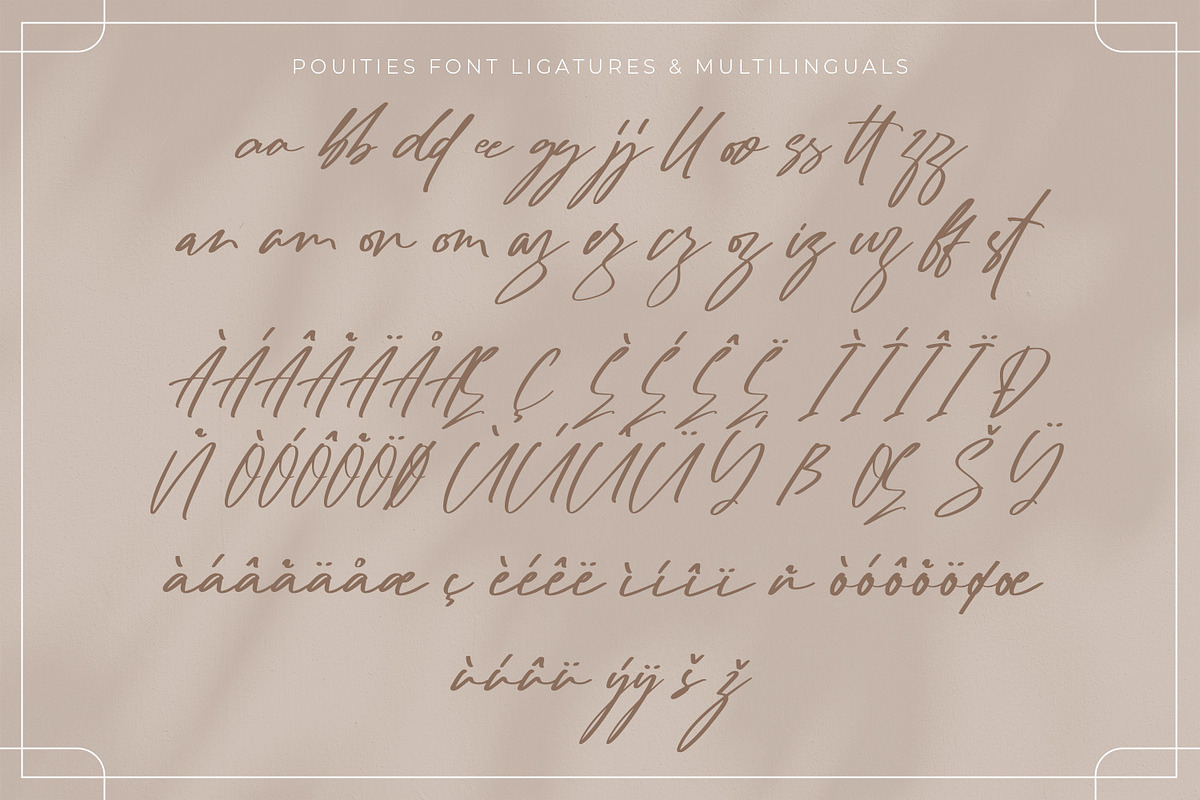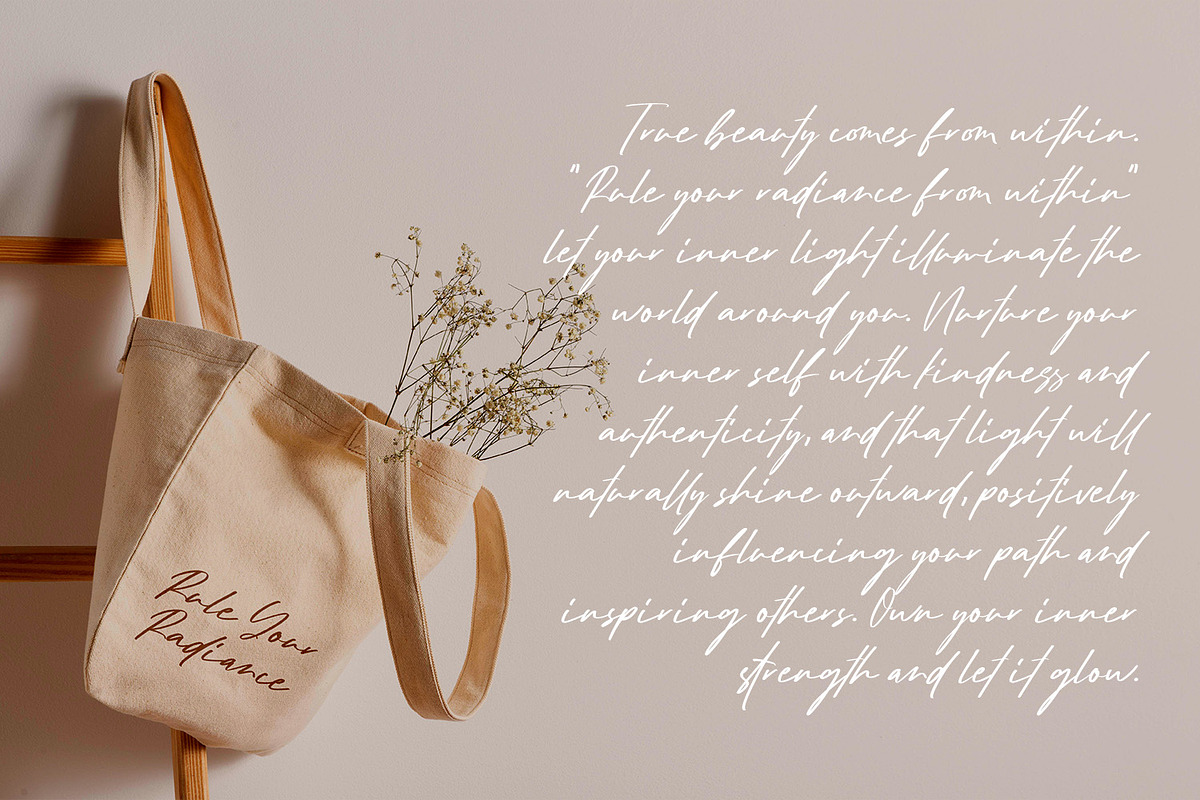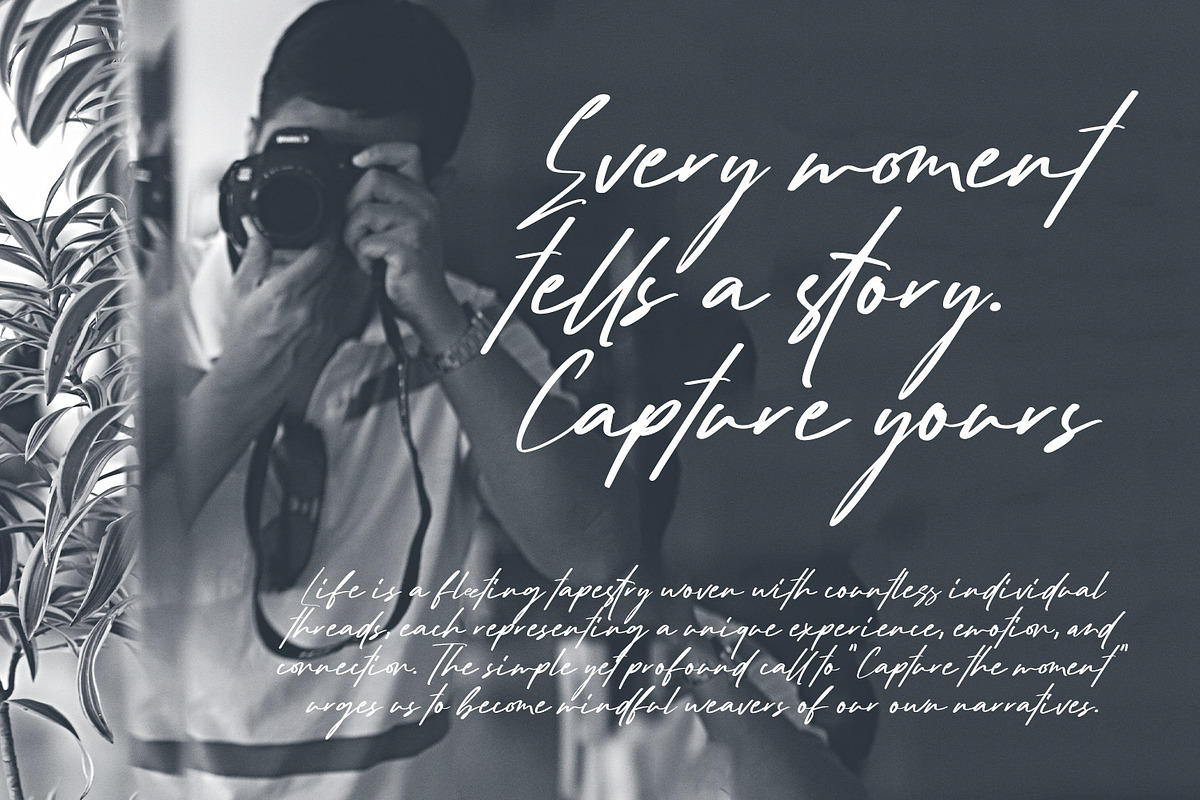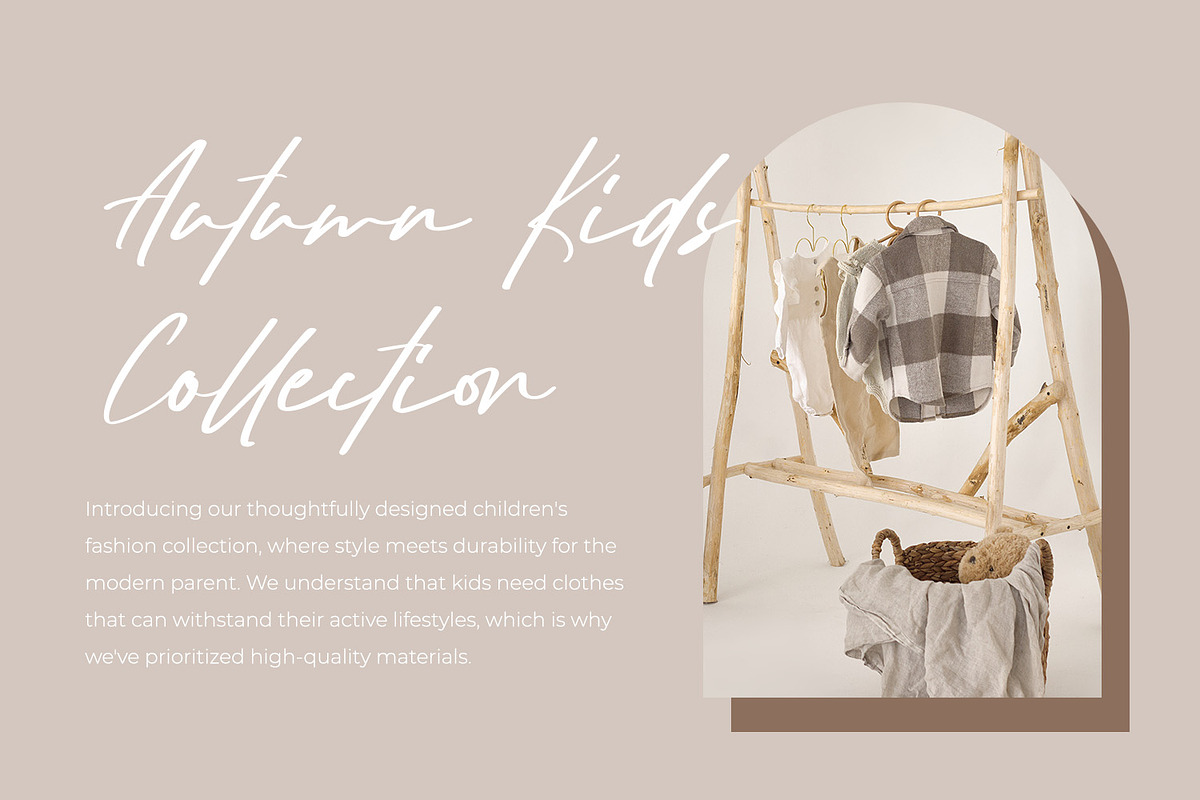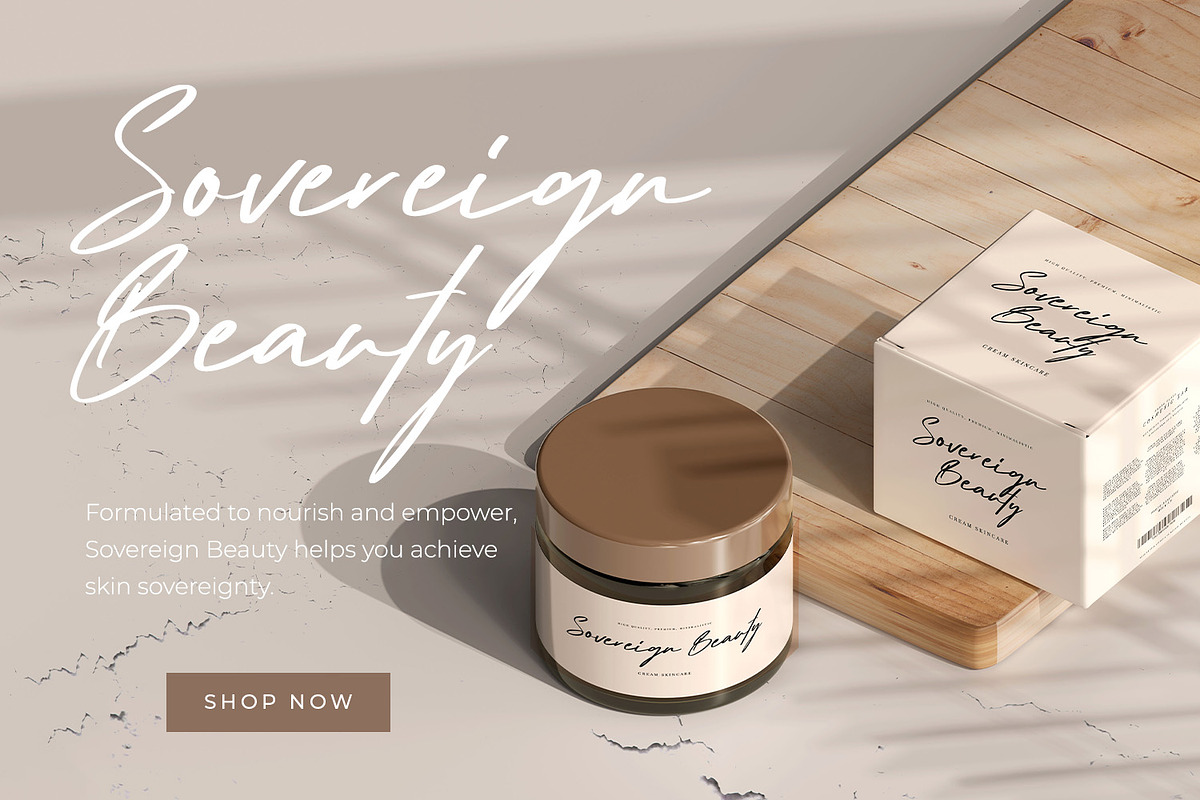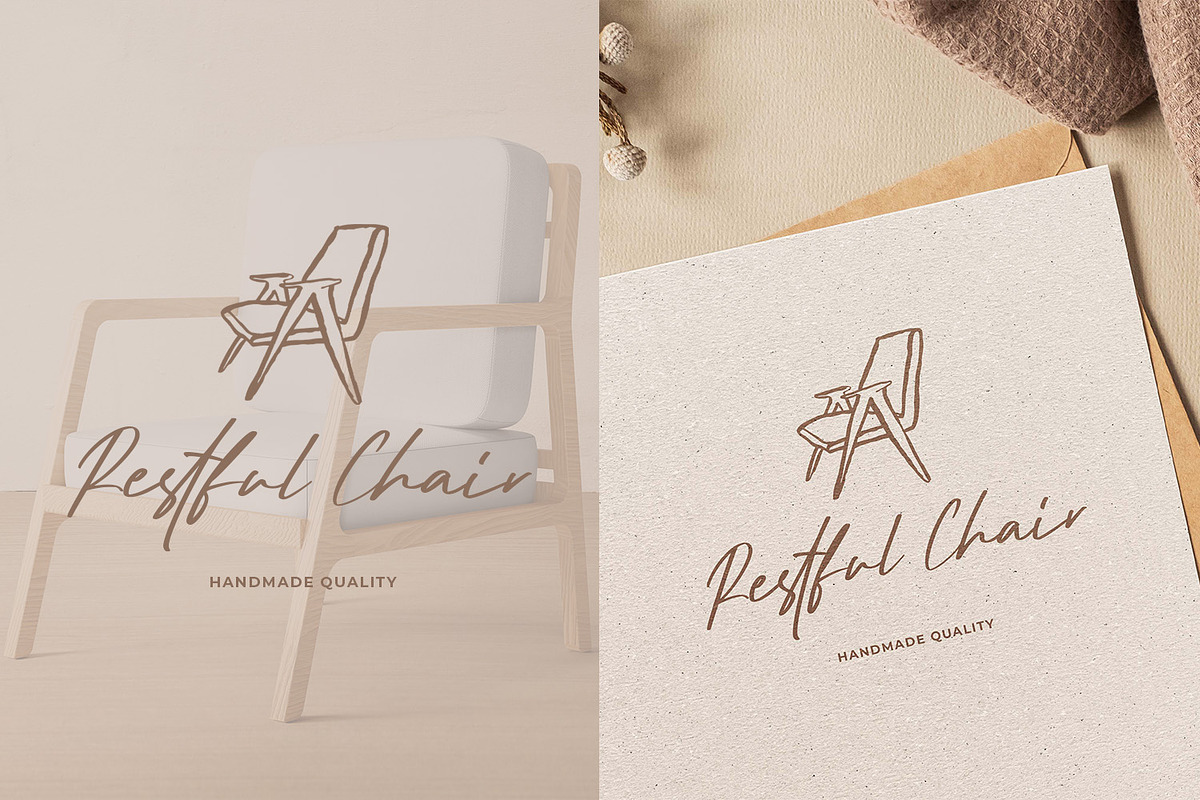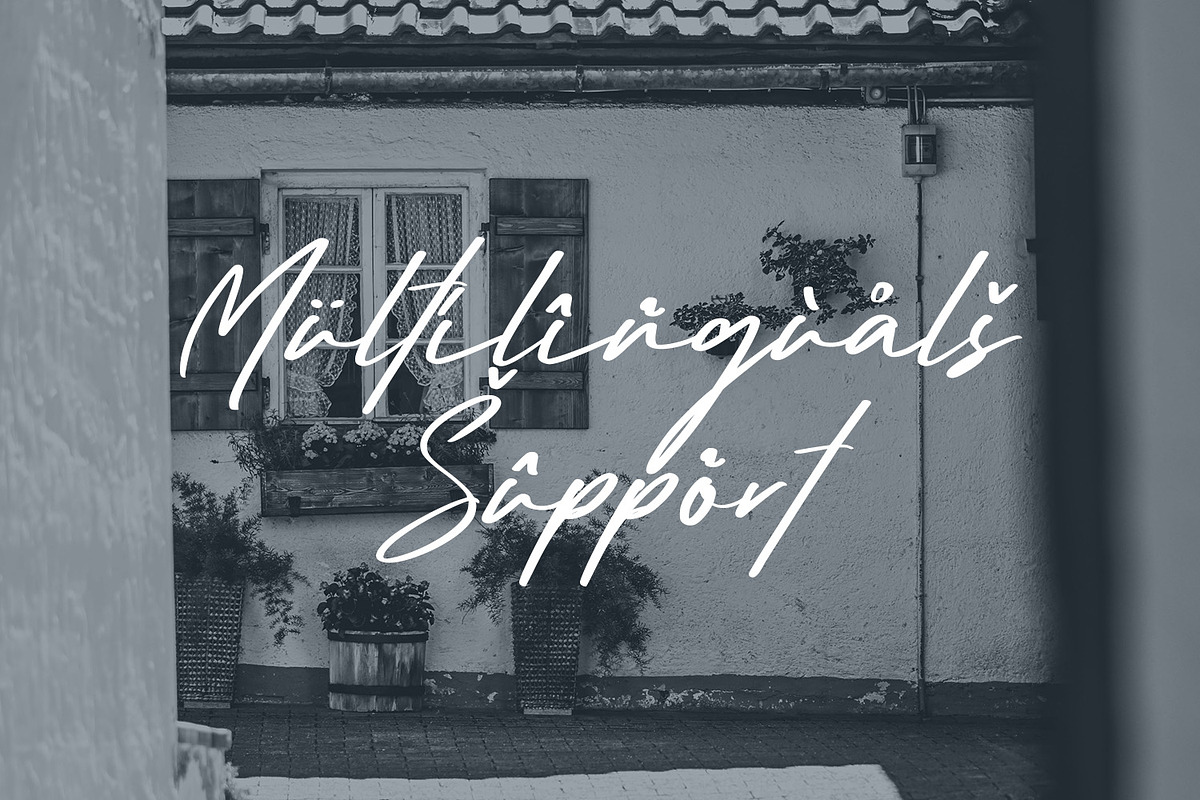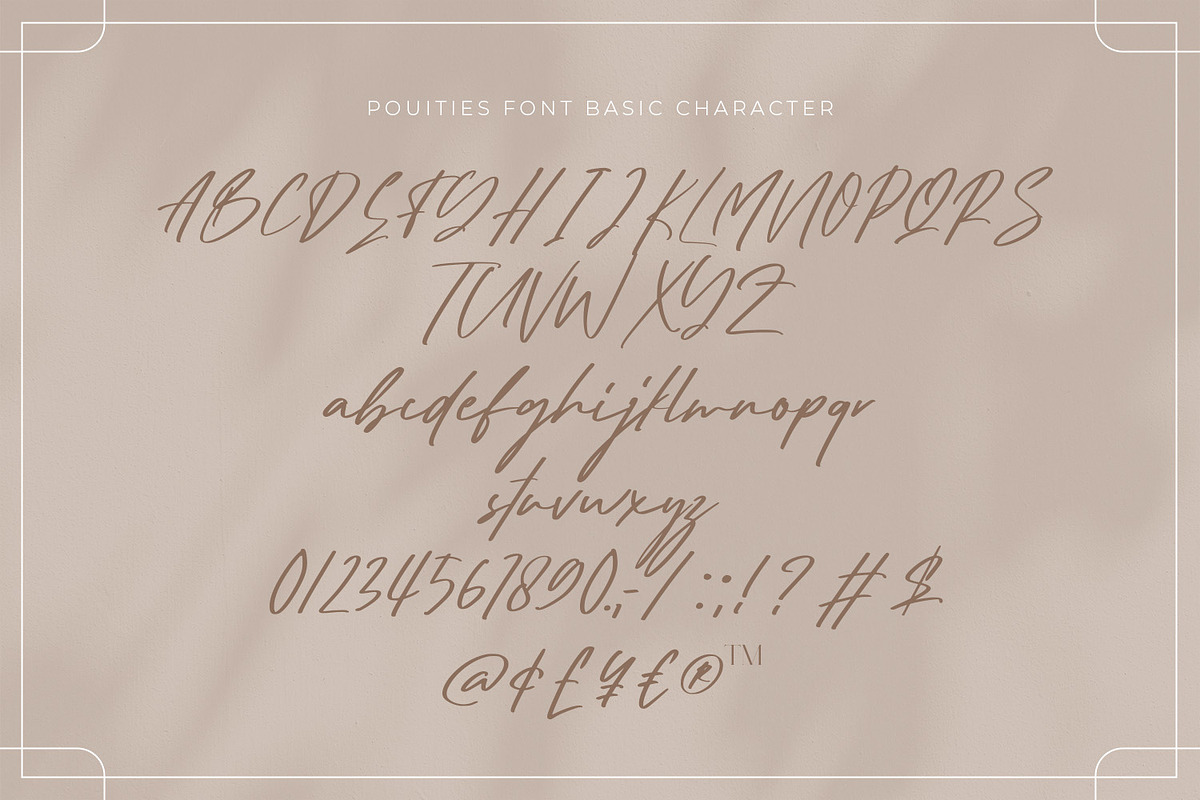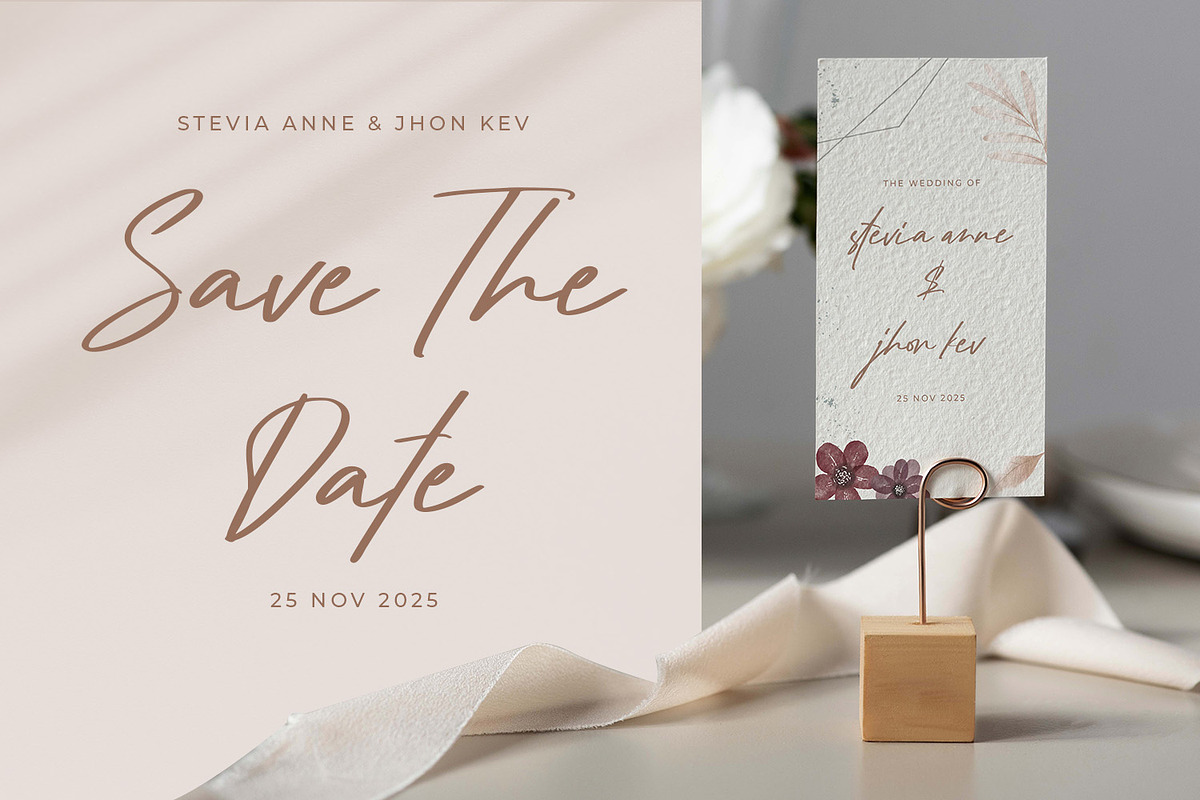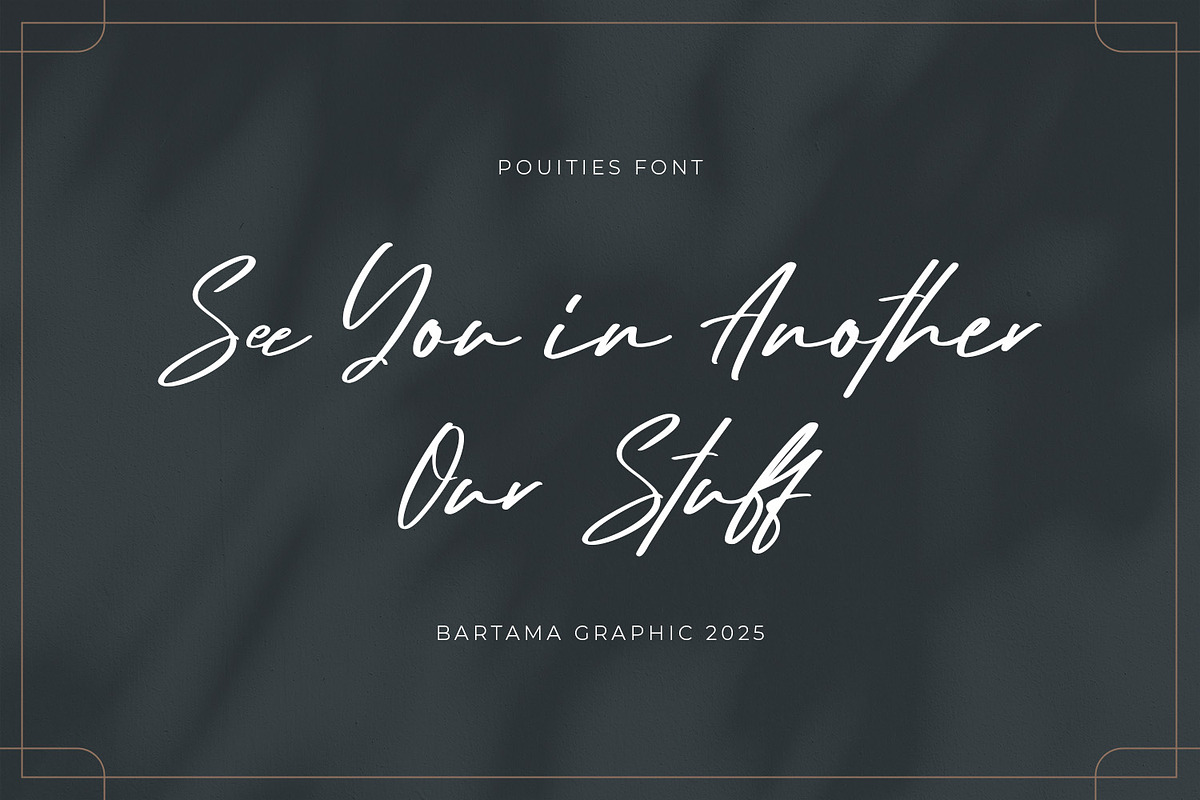
Pouities - Casual Script Font
Pouities is a casual signature script font. Created with classy, simple, elegant, and artistic looks, perfect for your design needs.